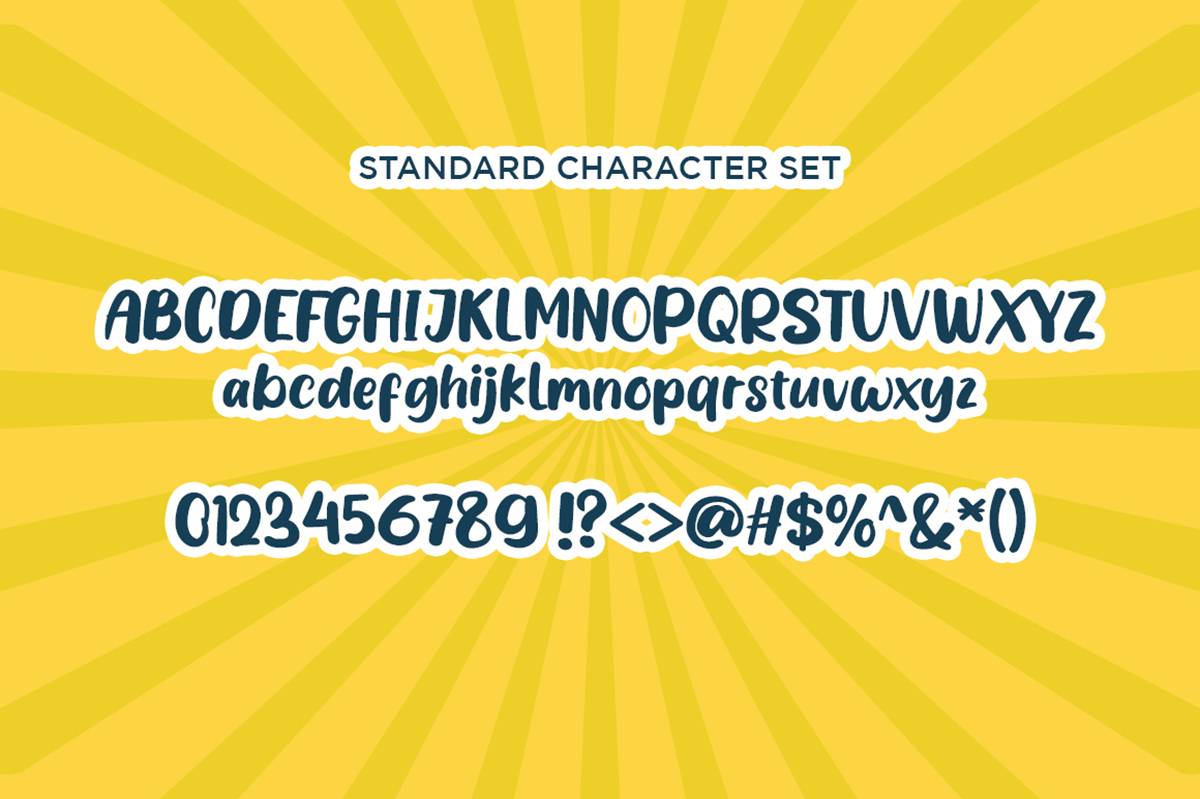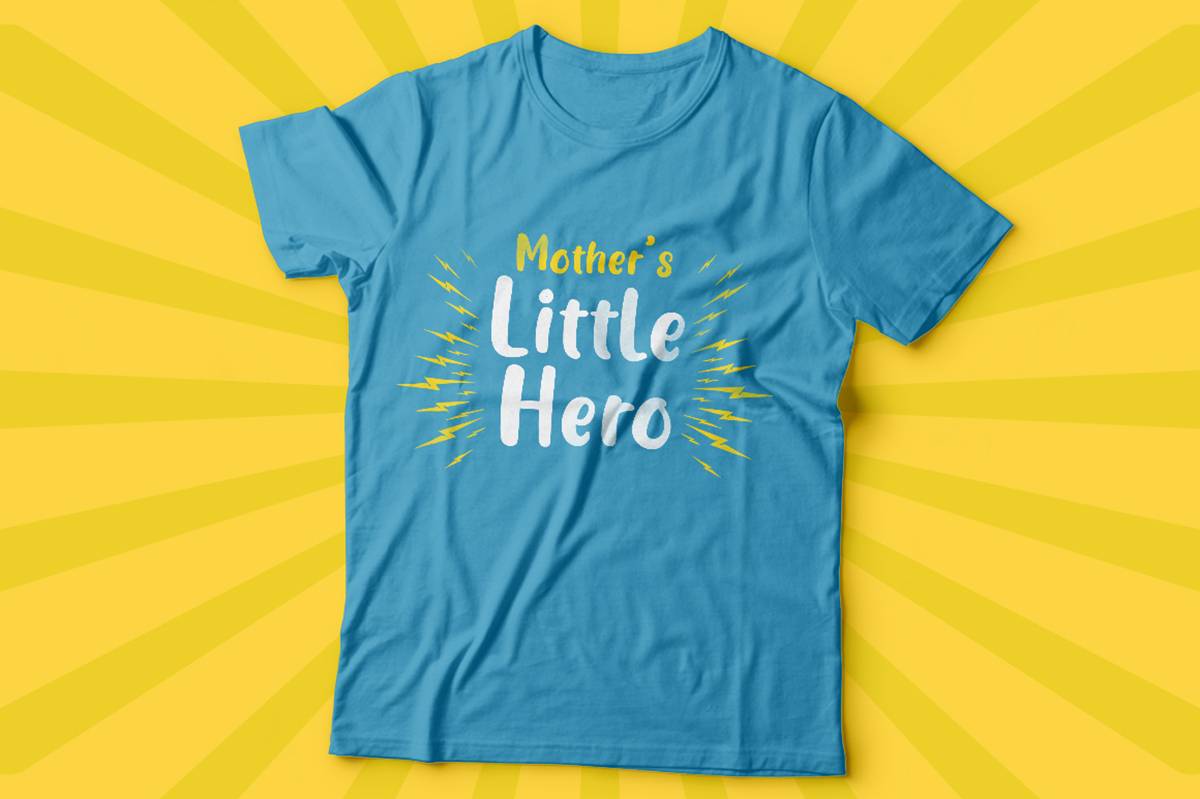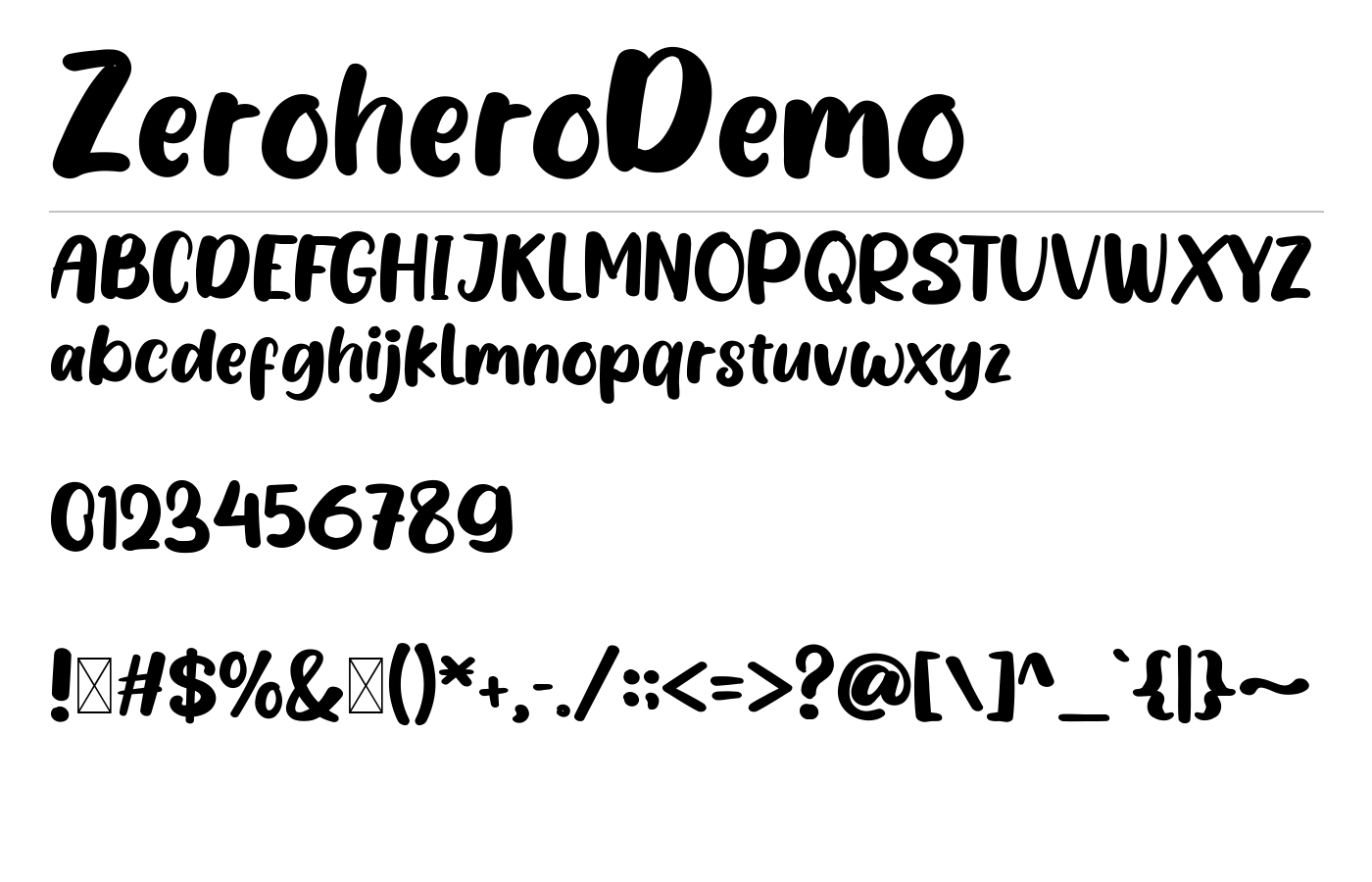
Zerohero is a bold, playful handwritten sans serif font with a casual and friendly vibe. Its rounded, irregular strokes and medium-to-high x-height give it an approachable, informal character, making it ideal for fun branding, posters, and headlines that want to convey creativity and warmth. This font works well where a lively, personal touch is needed, especially in relaxed or youth-oriented designs.
Zerohero Font
About Zerohero Font
| Font family | Zerohero Font |
| Designer | Aditya Rezki Apriyadi |